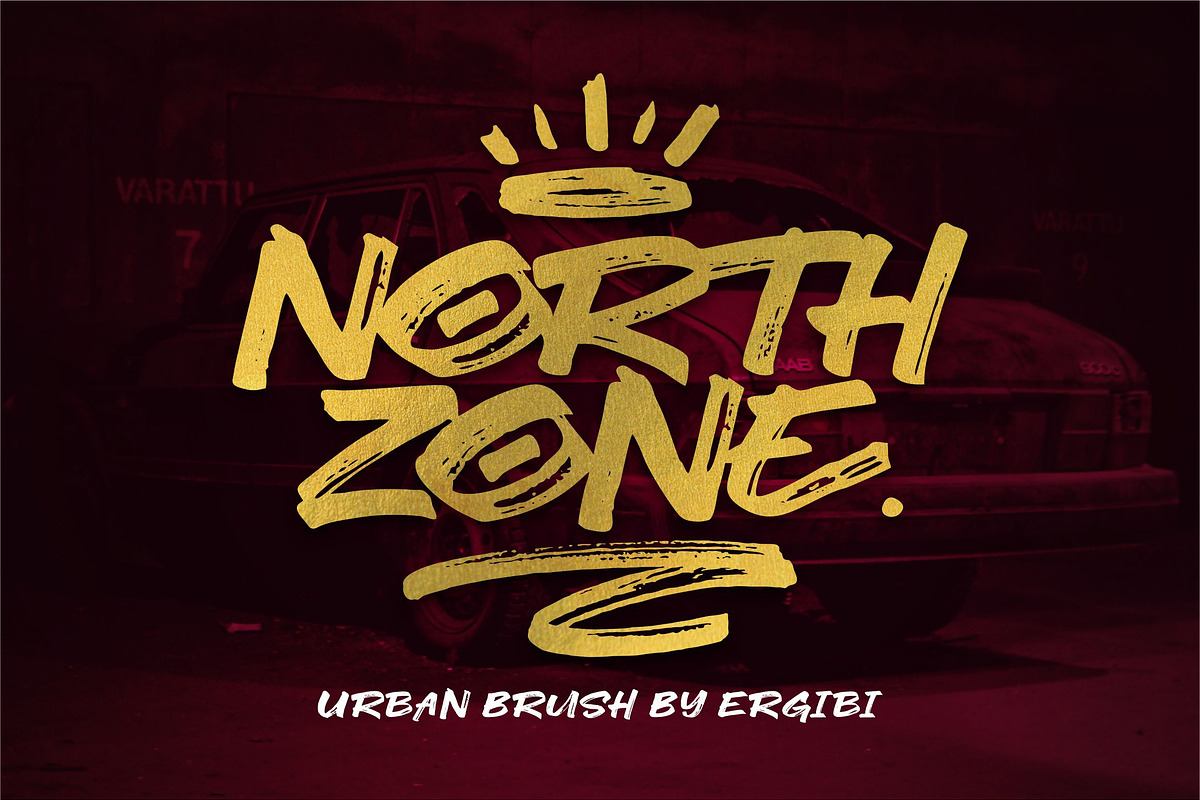
NORTH ZONE. //Urban Brush// Free Download is a bold and gritty typeface that captures the raw energy of street culture. With its rugged brush strokes and urban edge, this font is perfect for streetwear branding, music posters, graffiti-inspired graphics, extreme sports designs, and anything that needs a rebellious, hand-painted look.
The aggressive texture and powerful presence of NORTH ZONE make it ideal for standout headlines and edgy visuals. It brings an authentic, handcrafted vibe that’s full of attitude—perfect for breaking the mold and making bold statements.